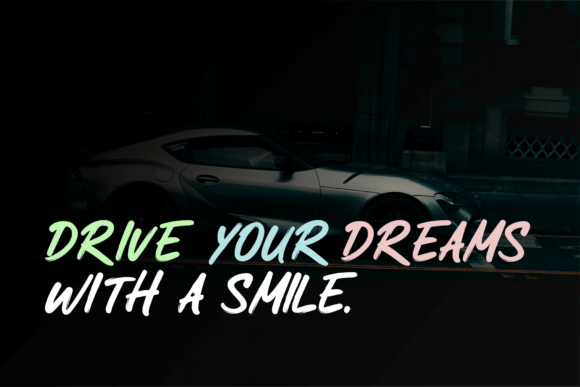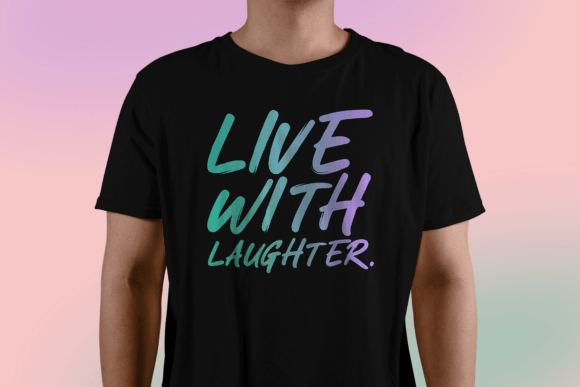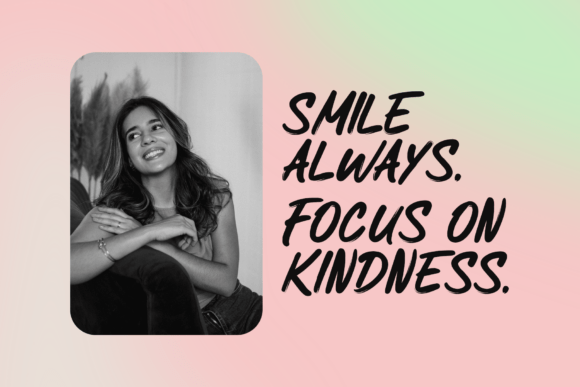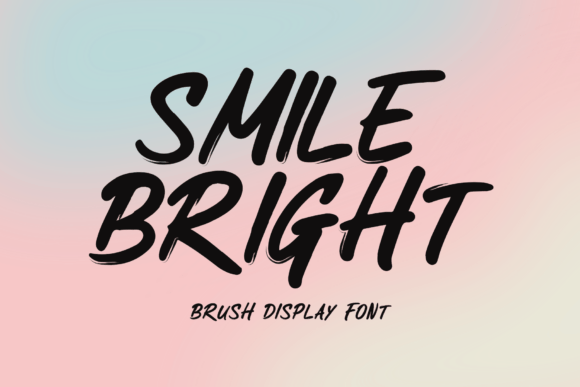
Introduction to Smile Bright Font
Smile Bright is a bold brush display font that brings hand-painted energy to titles and logos.
This modern brush typeface features thick, textured strokes, natural pressure contrast , and a confident slant that reads fast and loud Open counters, a generous x-height, and tight spacing make the lettering pop on posters, social media, and thumbnails, while the dry-brush texture adds authentic, hand-lettered grit.